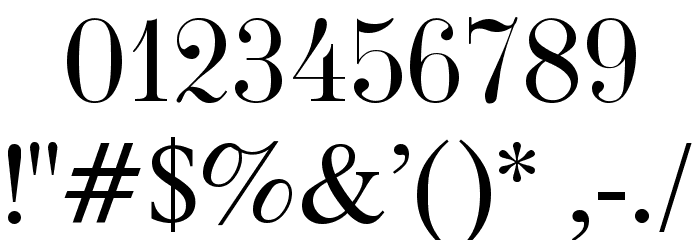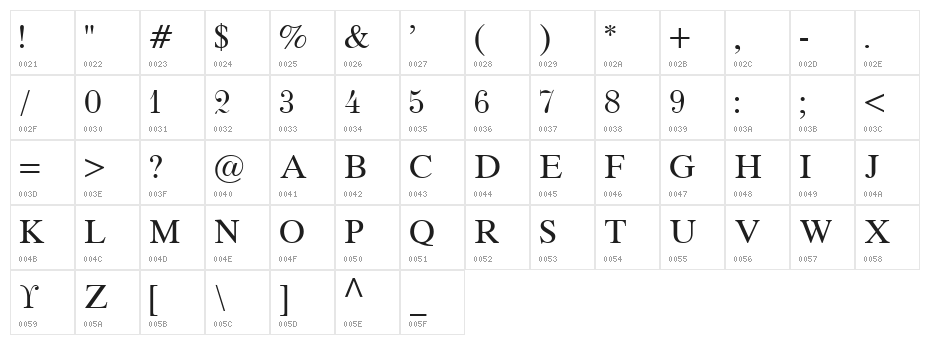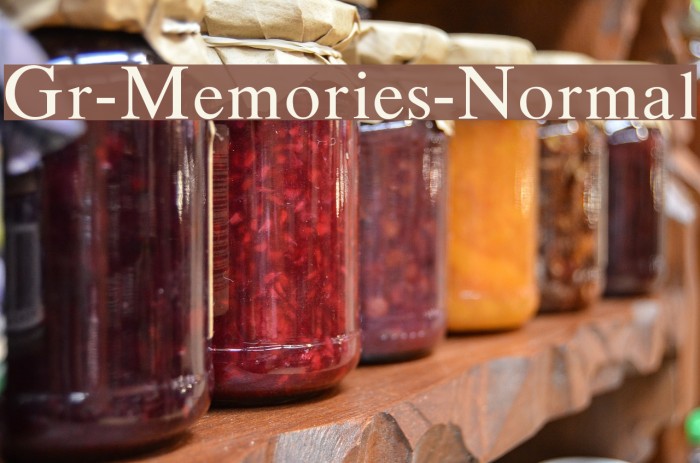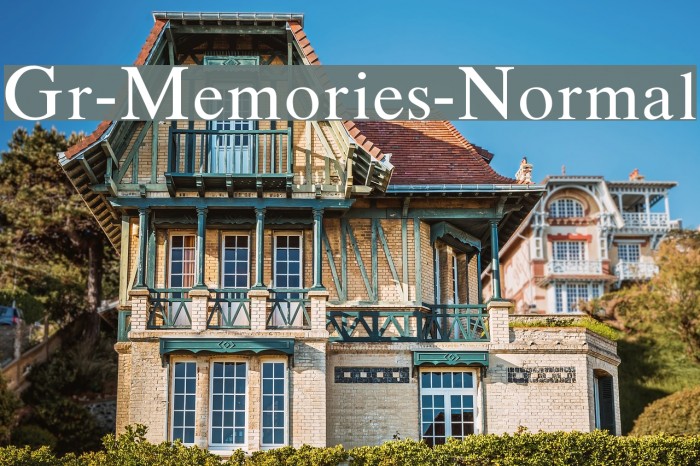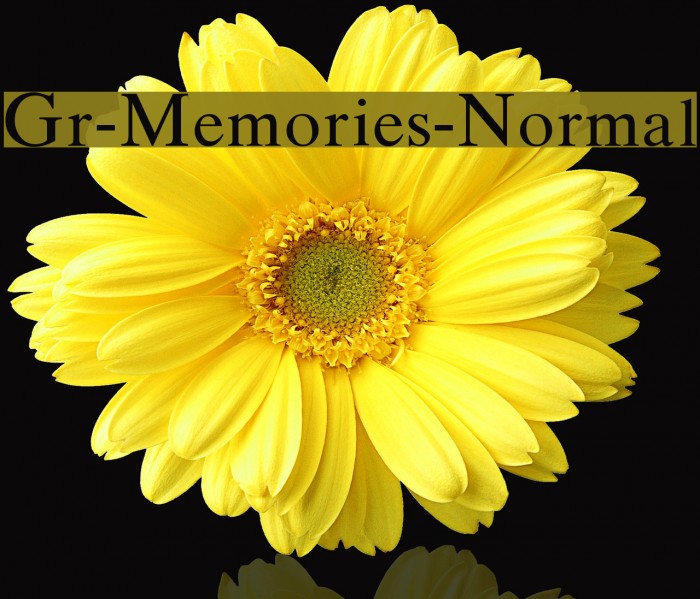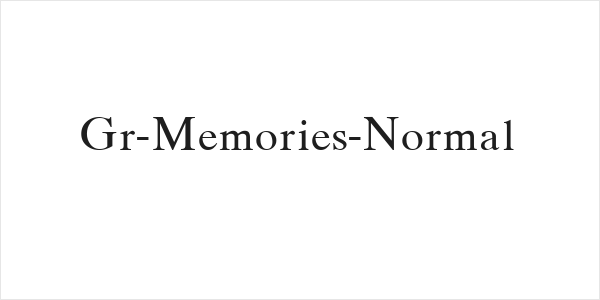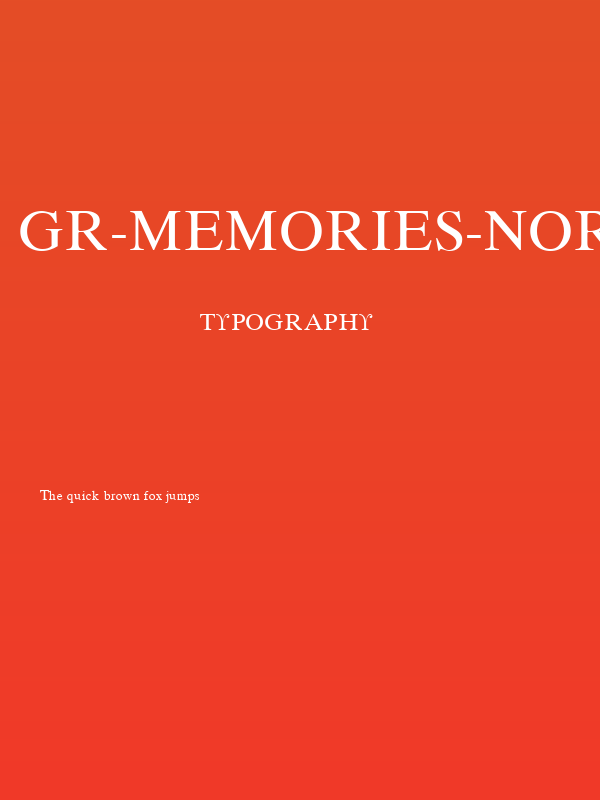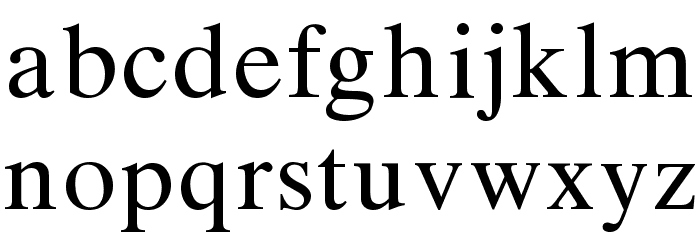
Gr-Memories-Normal Font
Gr-Memories-Normal Description
This font features a classic serif style with elegant and refined strokes. The uppercase letters are bold and commanding, while the lowercase letters maintain a graceful and balanced appearance. The numerals are distinct and easy to read, with a traditional design that complements the overall aesthetic. Special characters are well-integrated, maintaining the font's cohesive look. The serifs are pronounced, adding a touch of sophistication and formality. This font is versatile, suitable for a variety of applications where a timeless and professional appearance is desired.